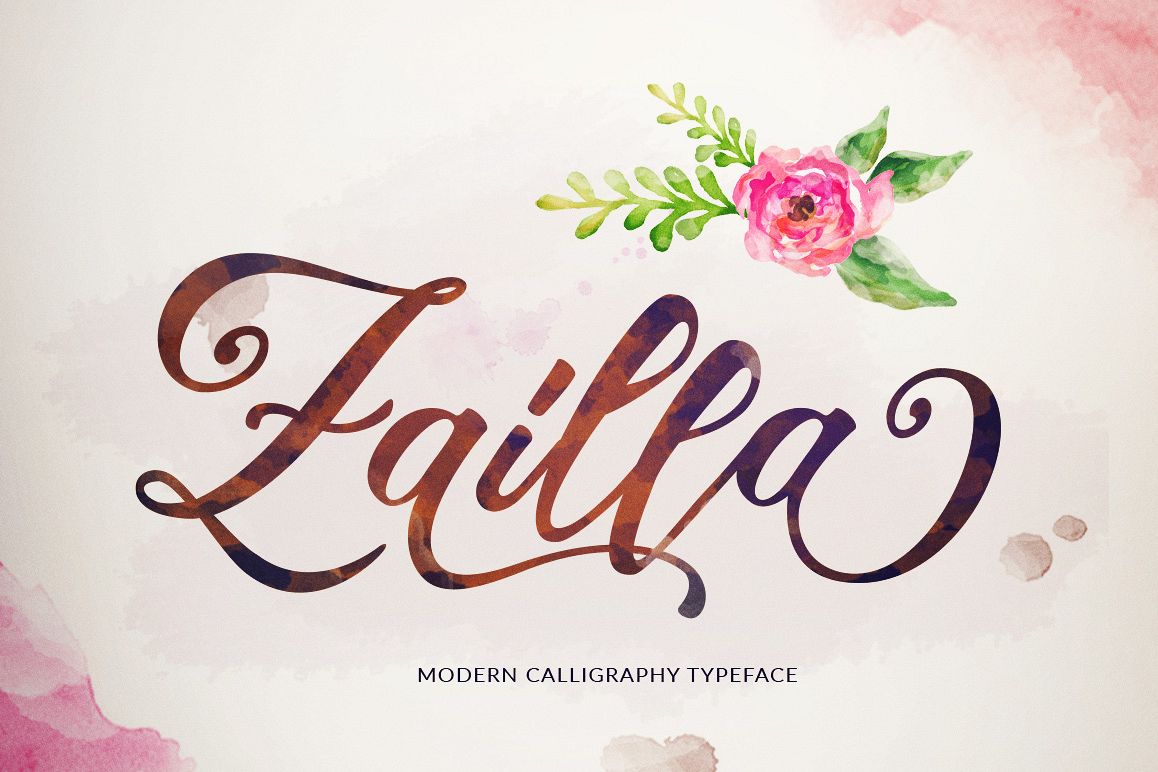
Zailla Script
Zailla is a script typeface beautiful calligraphy and modern. This font is suitable for a wide range of products each project, such as wedding invitations, greeting cards, correspondence, and various other purposes and many more. This language support that some international fonts, there are 439 glyphs and 191 Altenate so many options that you can use for your projects,
Terminal Alternates
Contextual Alternates
Standard ligatures
Stylistic sets
Basic Latin A-Z and a-z
Numbers
International Symbols include
Zailla Script